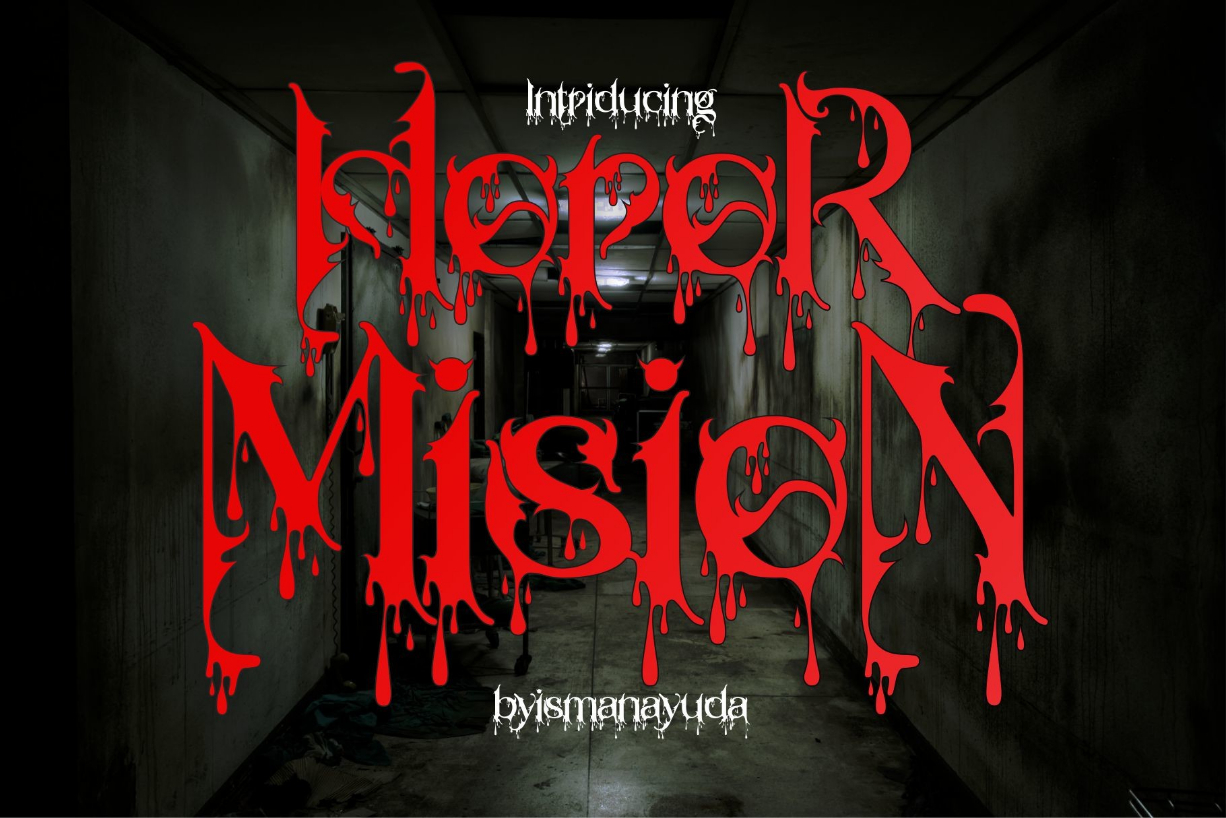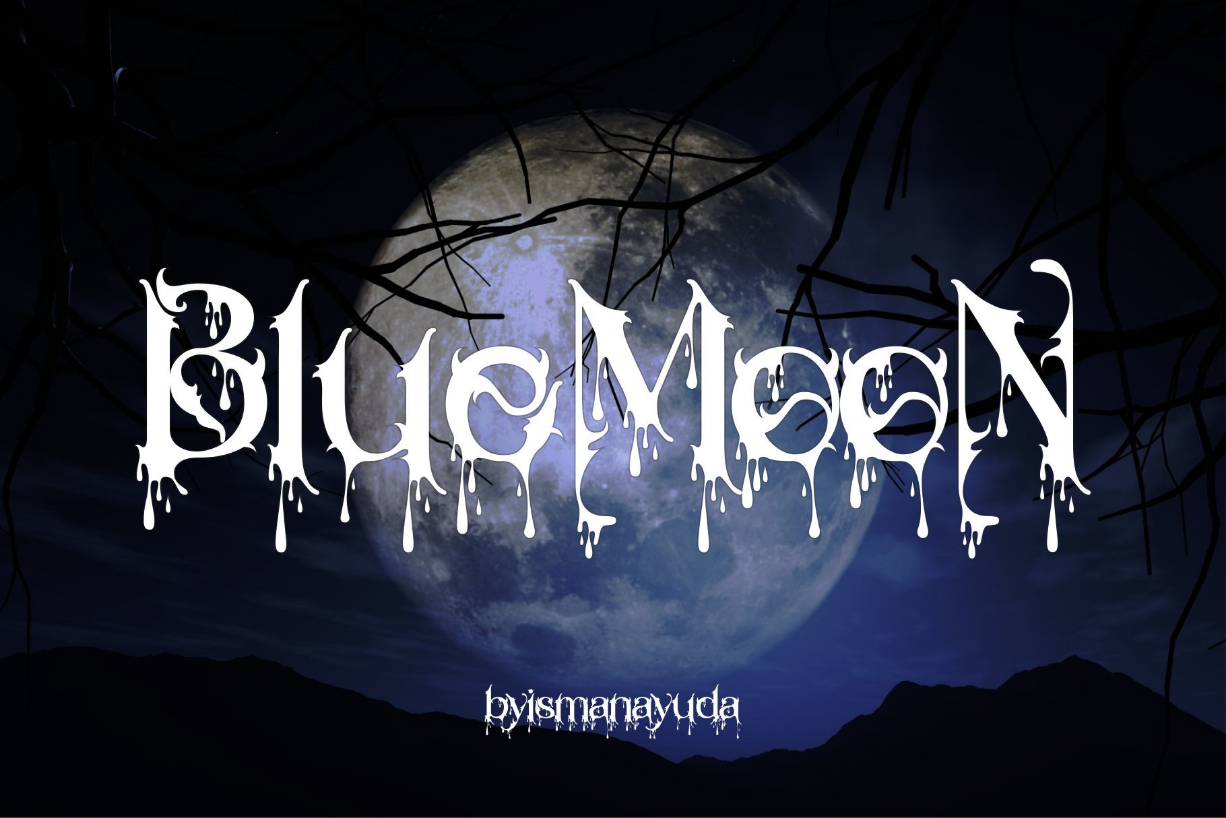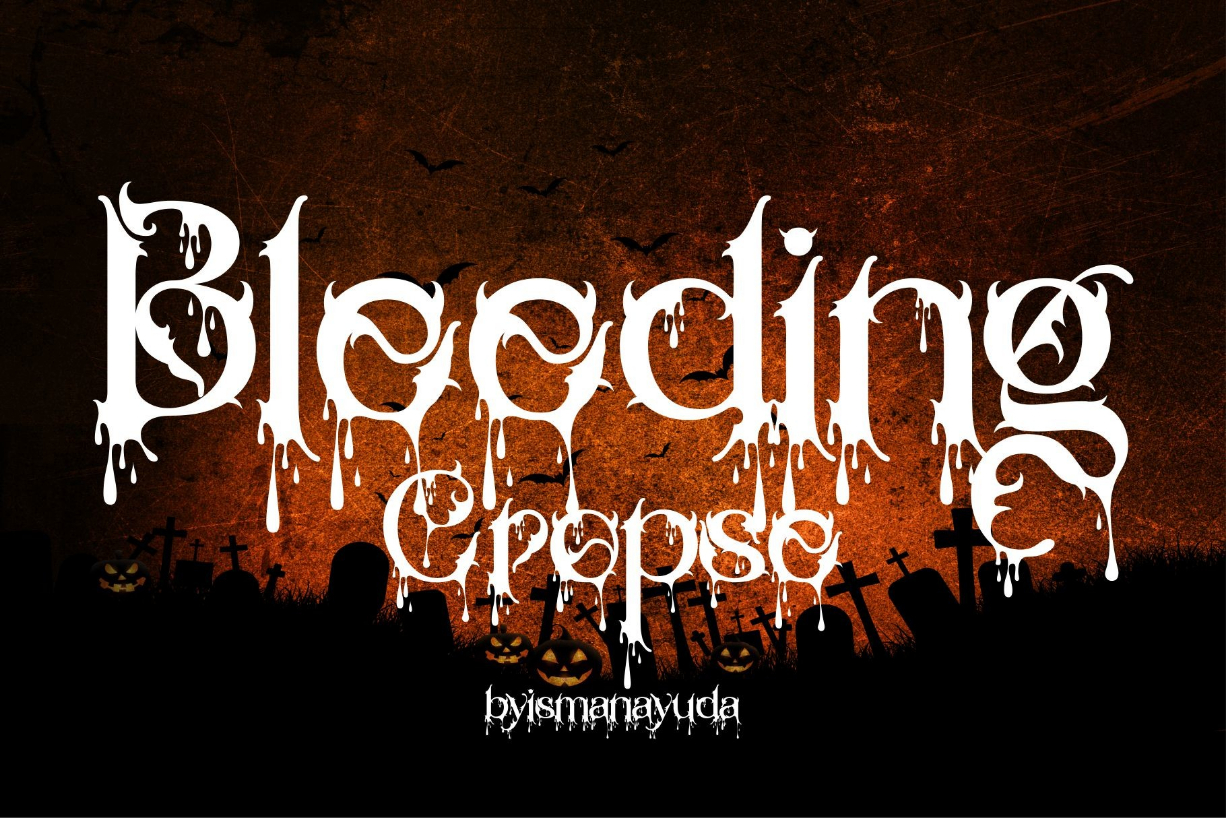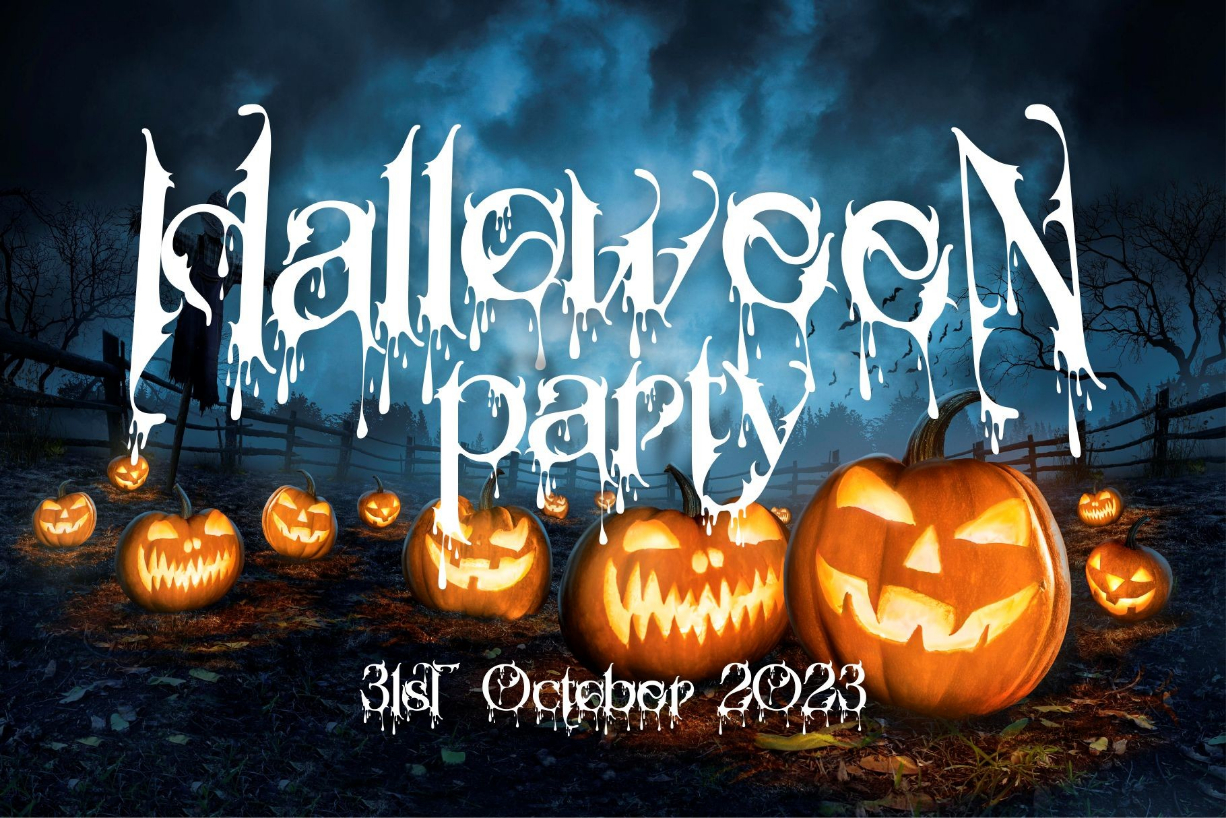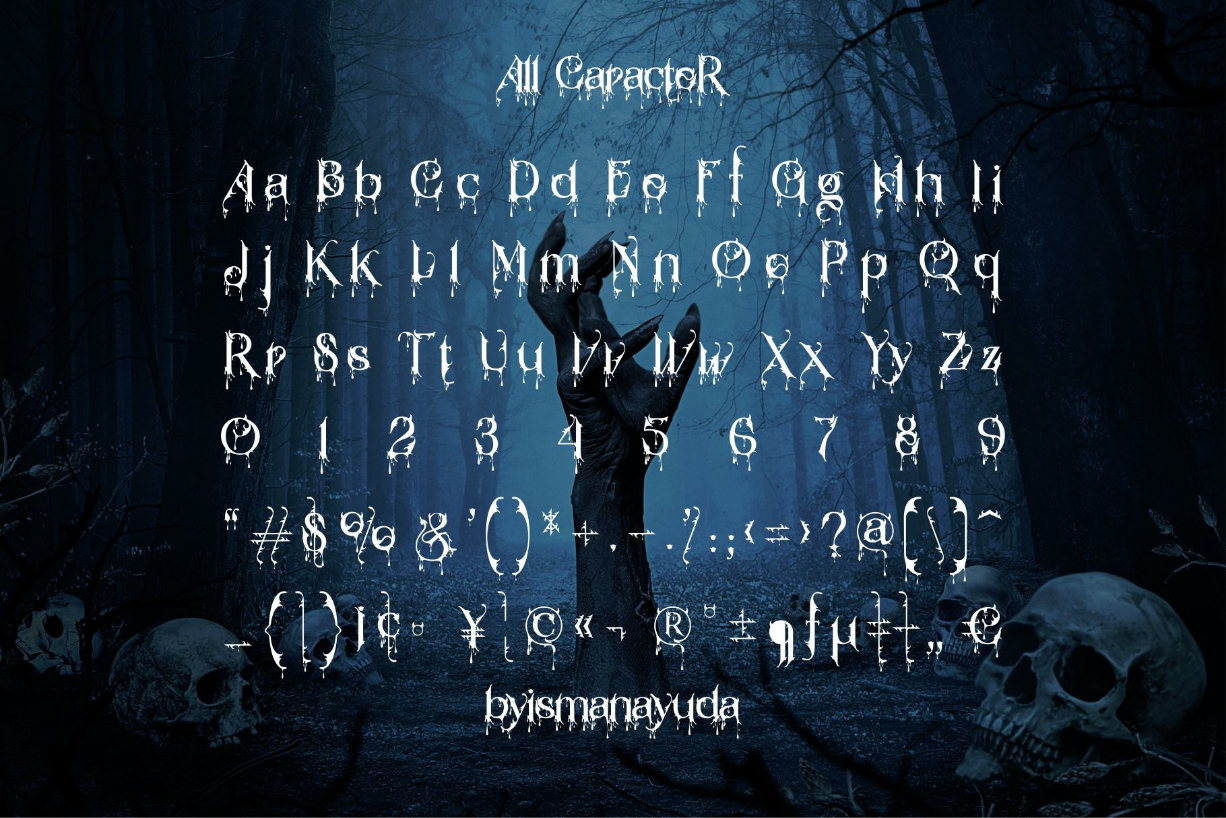
Horor Mision Font
About Horor Mision Font
In order to welcome Halloween, this font was created so that it can be used for Halloween posters that seem spooky.
That’s why we created an effect with bloodshed and it looked spooky.
Hopefully, this font can be used by all groups, be it Halloween posters or for branding, also for metal band posters.